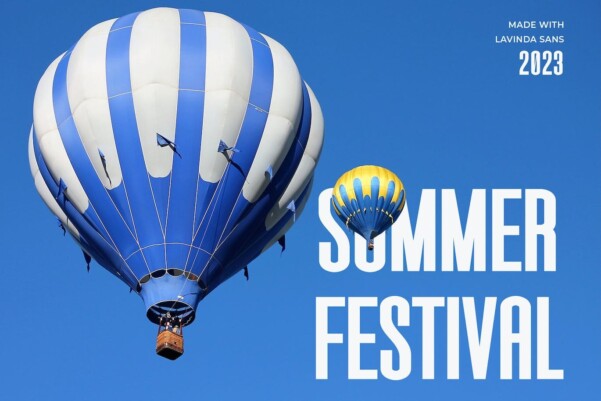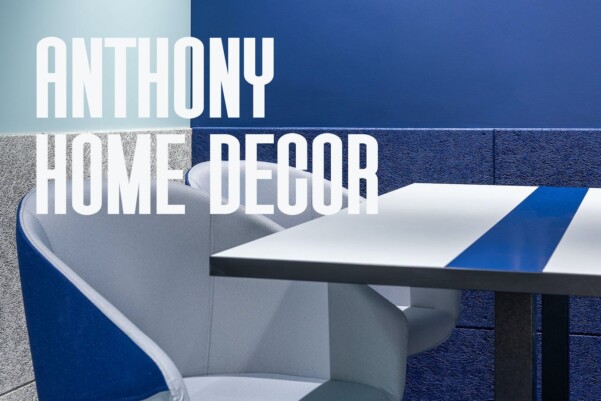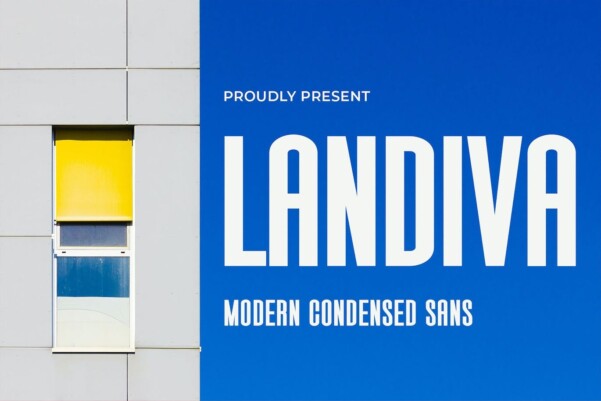
Landiva – Modern Sans Font
Landiva – Modern Sans Font, a modern sans serif font with an elegant style, perfect for branding, logos, invitations, magazines, product packaging and more.